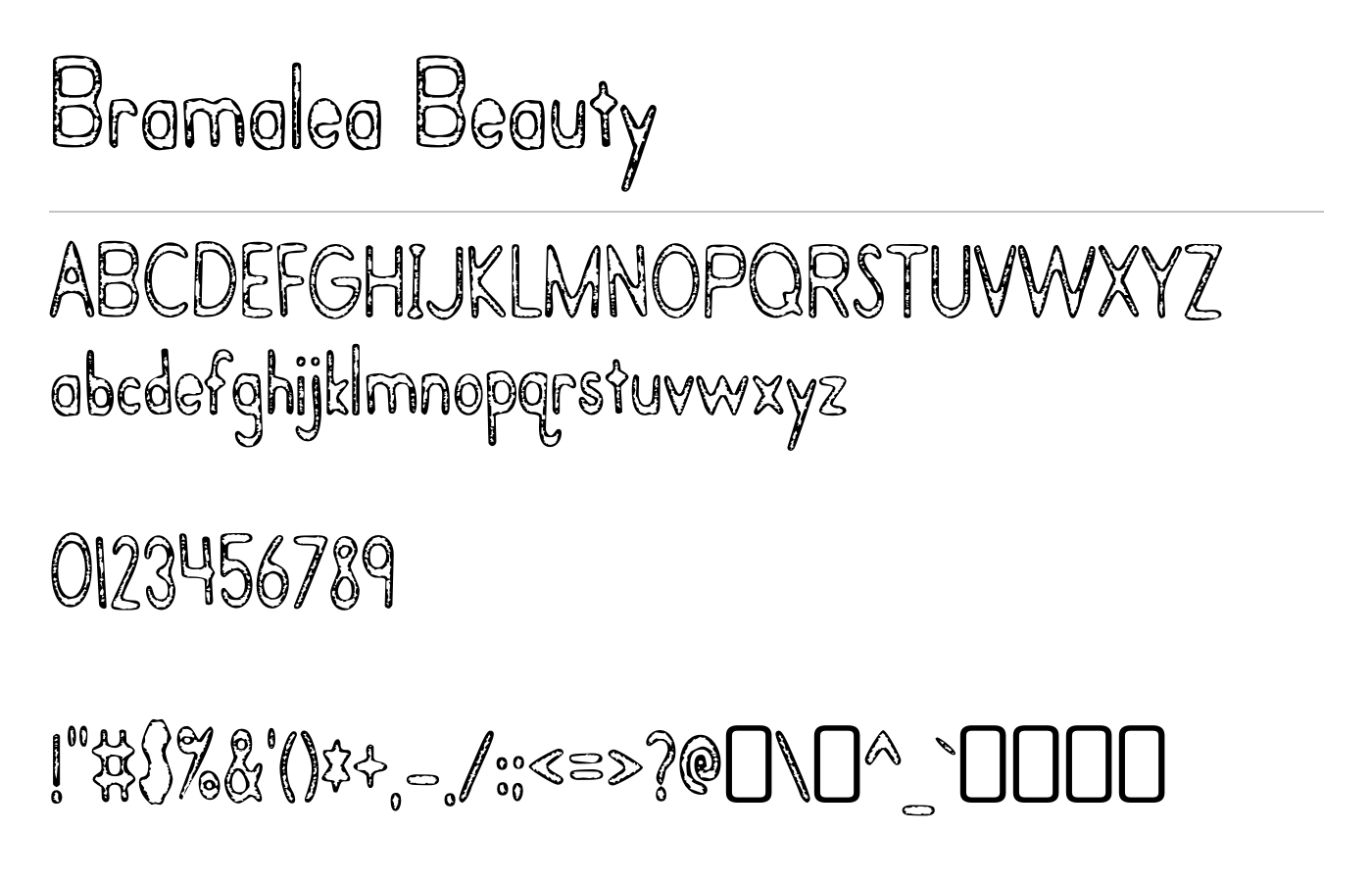
Bramalea Beauty is a playful and whimsical sans serif font with a hand-drawn, textured look that adds a charming, artistic feel to any design. Its irregular lines and decorative details give it a casual yet creative personality, making it perfect for projects that want to convey fun, friendliness, and originality. This font works well in children's books, crafts, informal branding, and eye-catching headlines where a unique, handmade touch is desired.
Bramalea Beauty Font
About Bramalea Beauty Font
| Font family | Bramalea Beauty Font |
| Designer | Raymond Larabie |